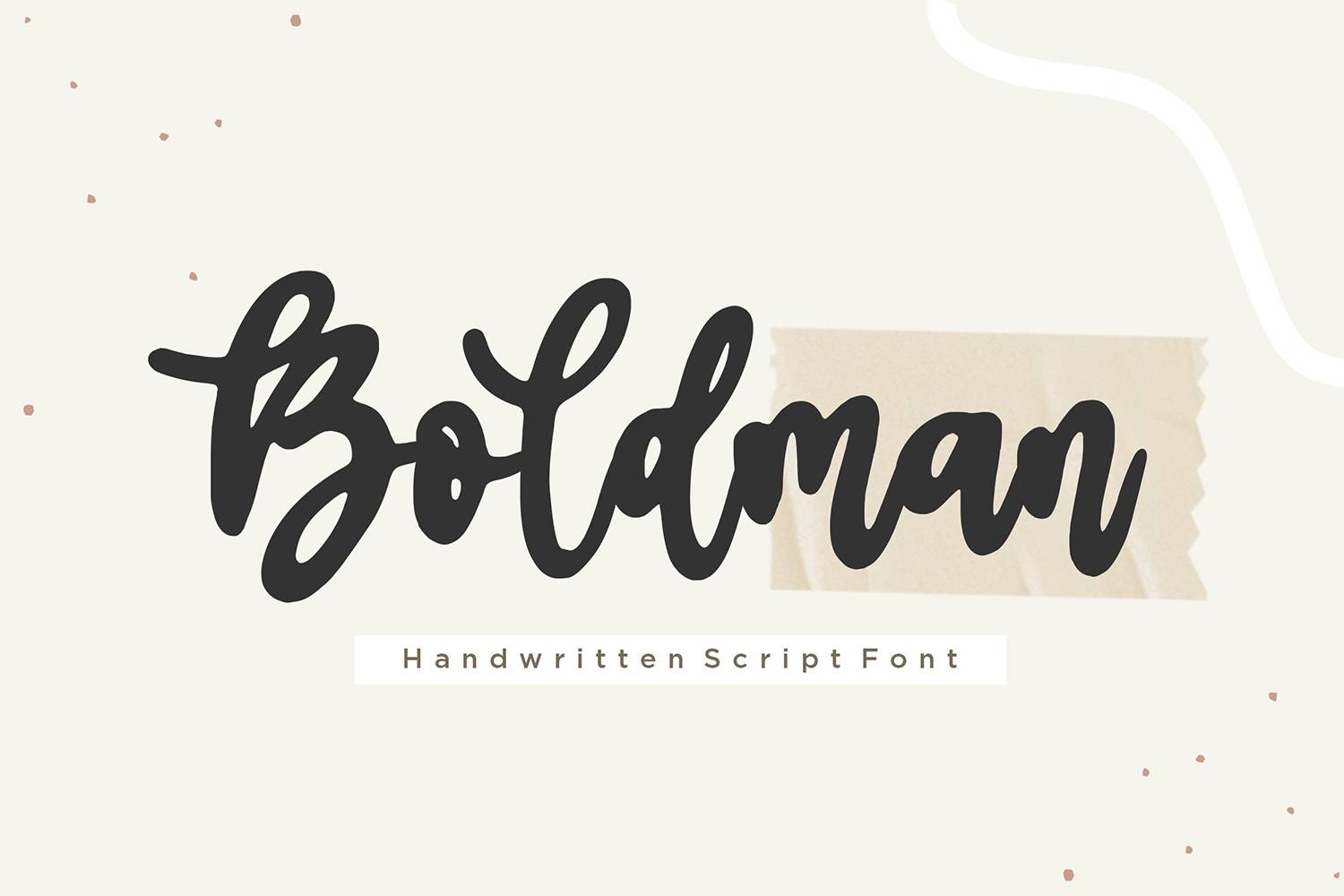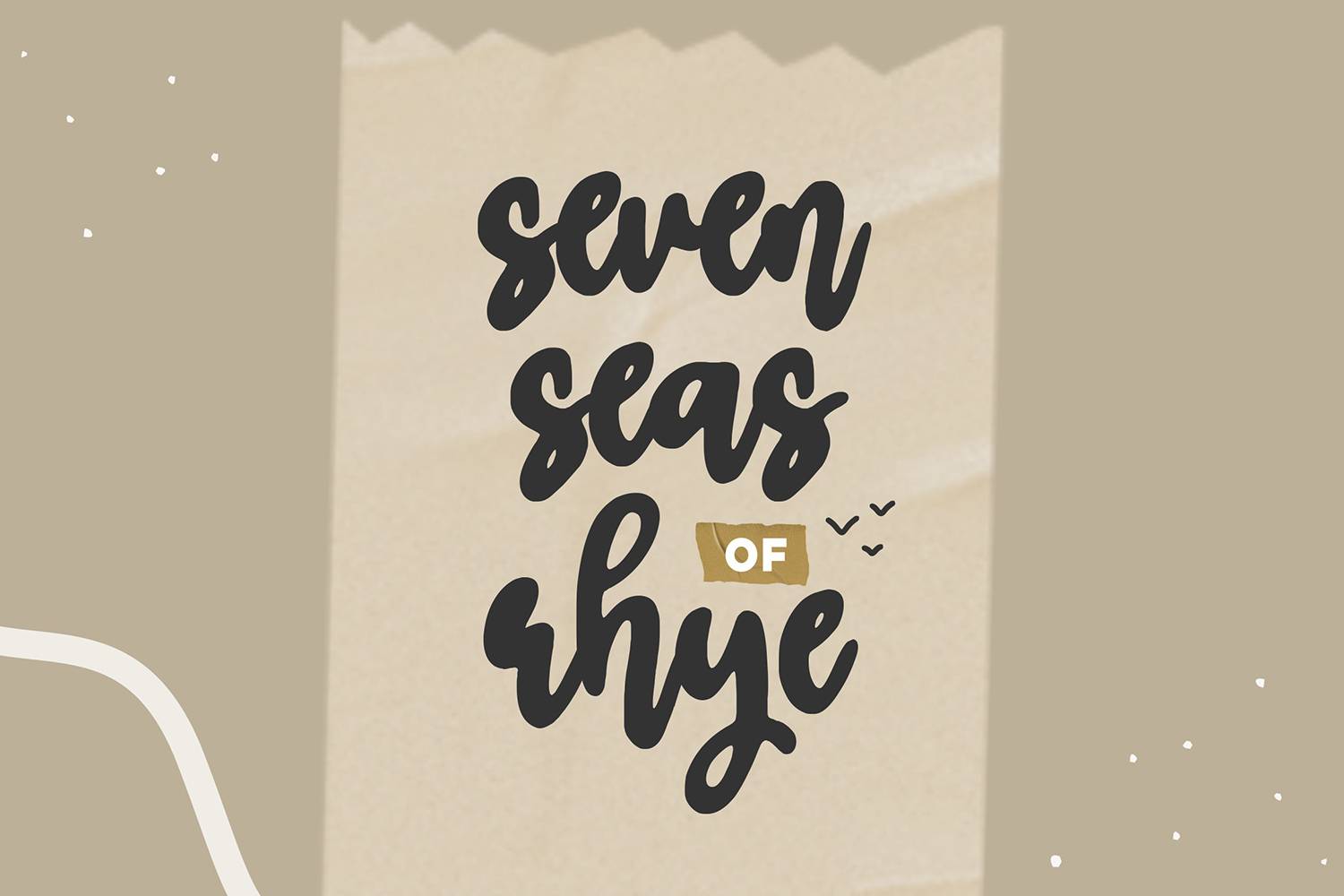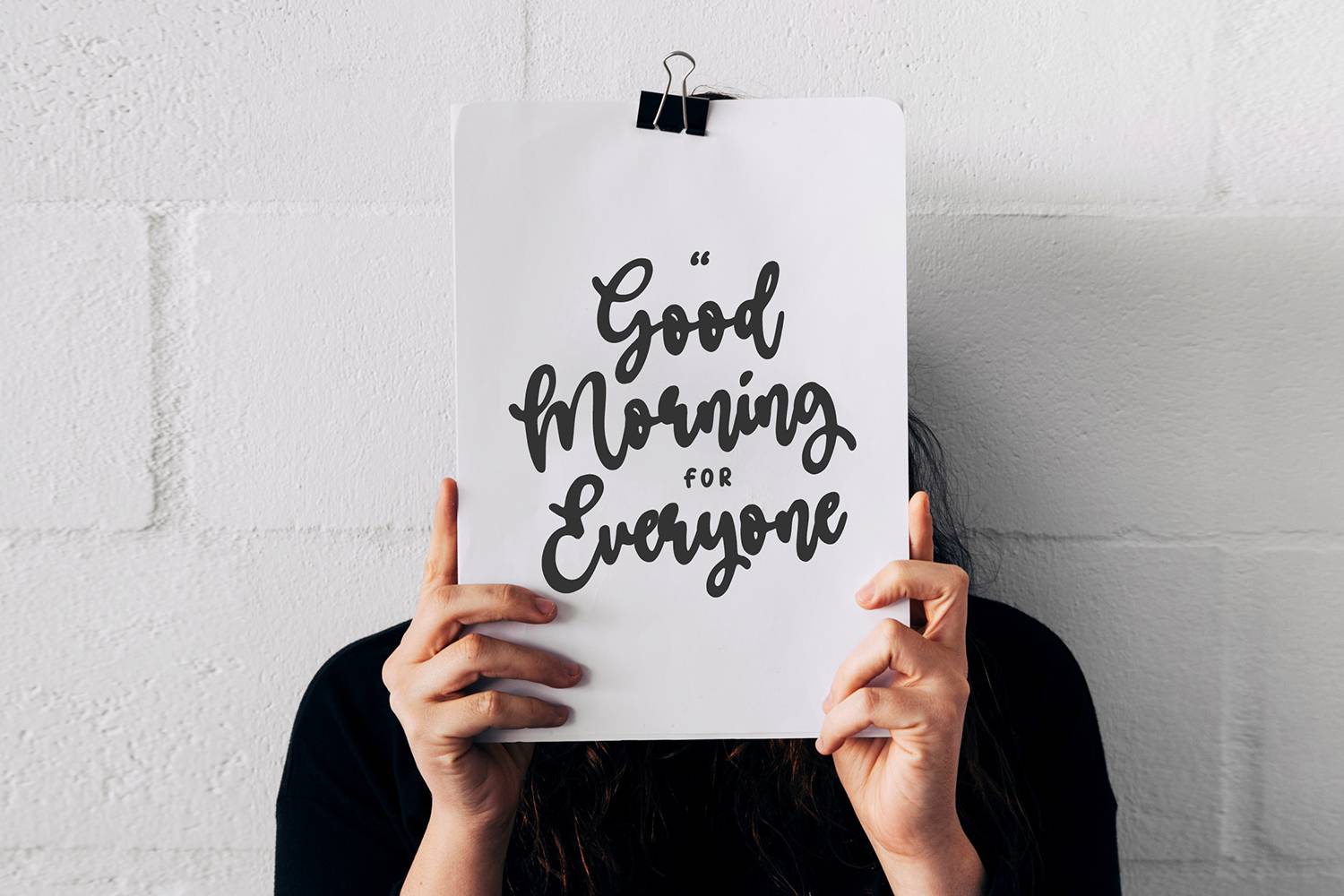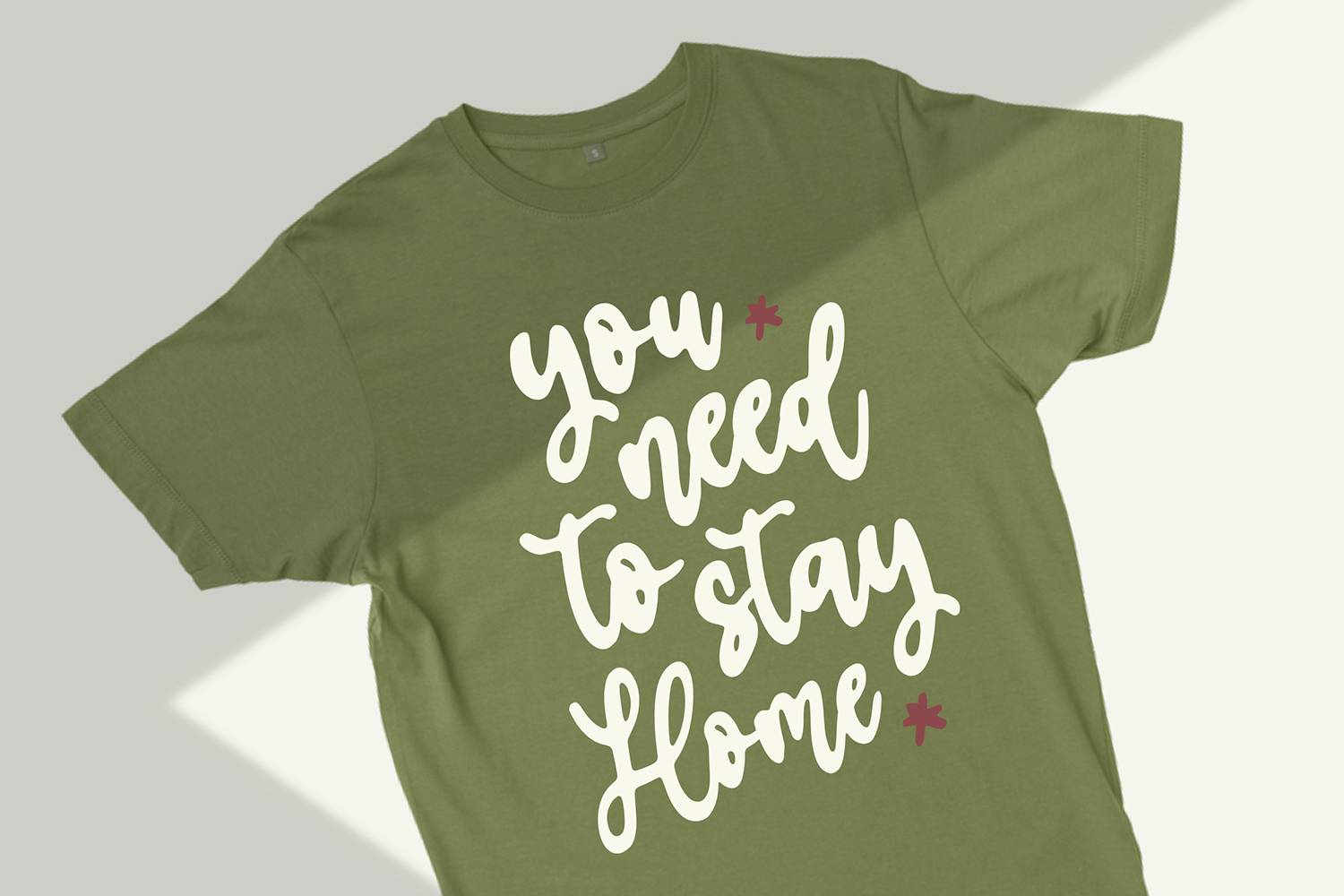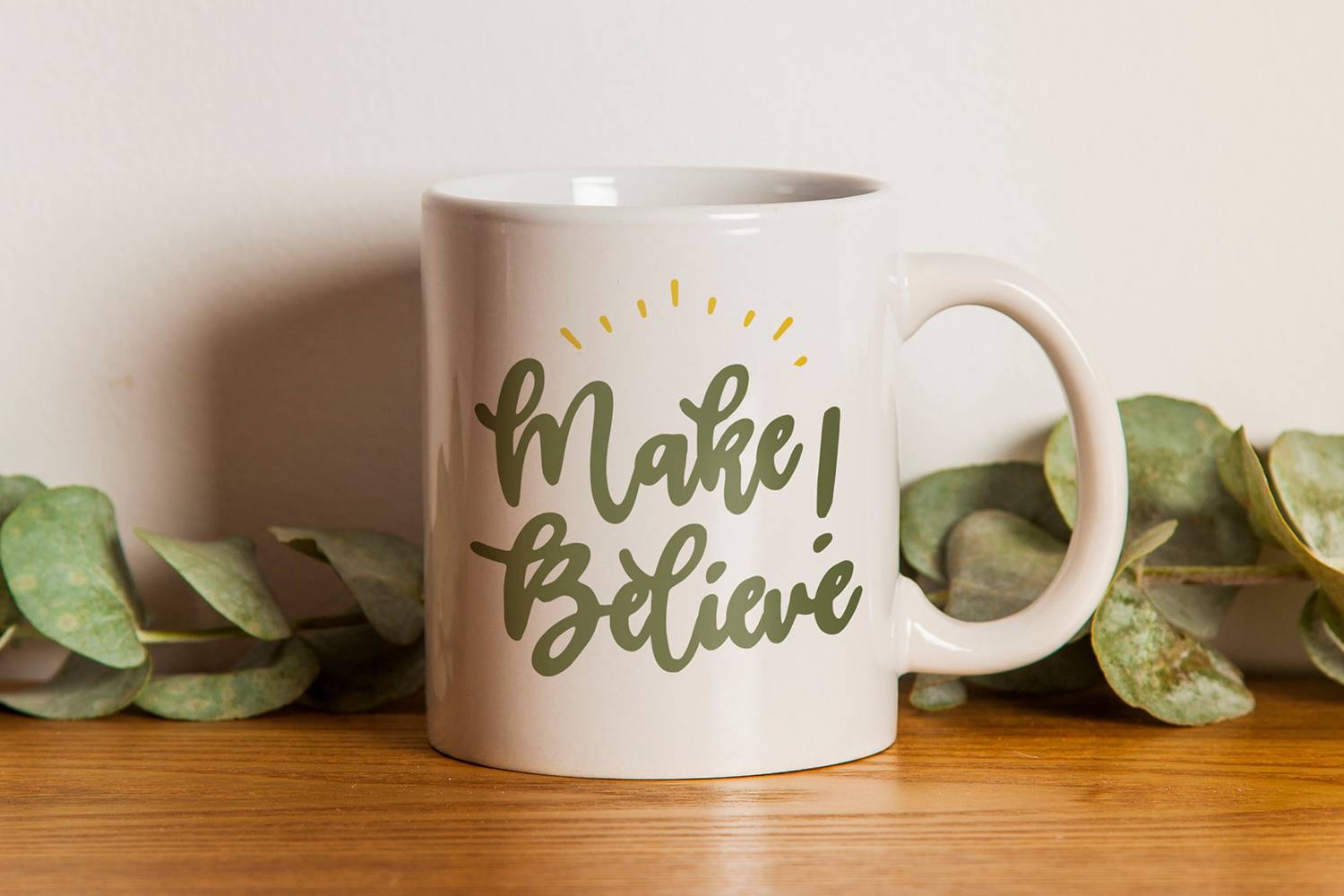
Boldman is a bold, playful script font that combines thick, smooth strokes with a casual handwritten style. Its lively, flowing letterforms and strong presence make it ideal for eye-catching logos, packaging, and headlines that want to convey fun, creativity, and personality. This font works great where a bold, friendly, and approachable look is needed.
Boldman Font
About Boldman Font